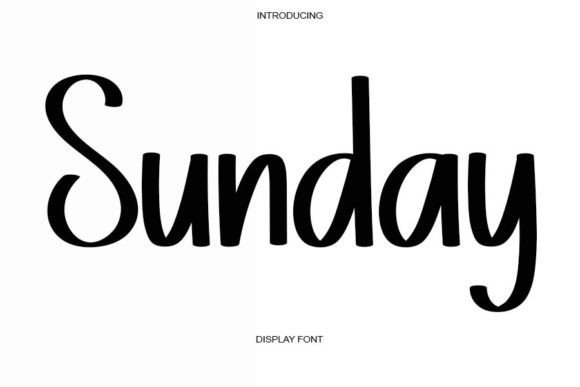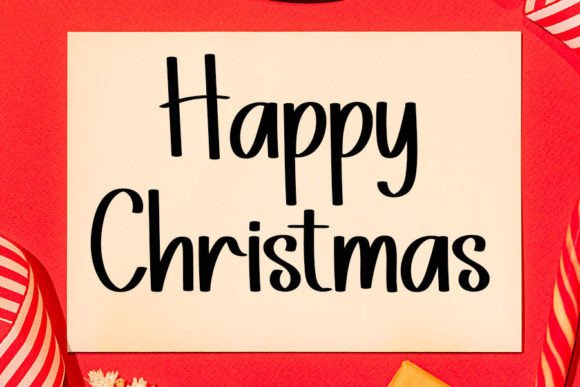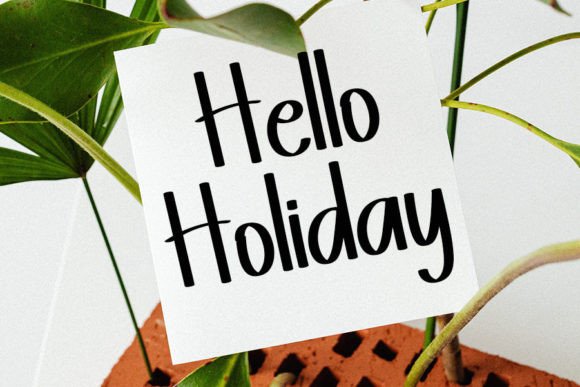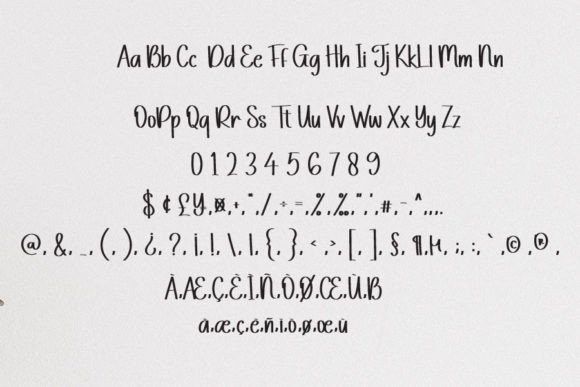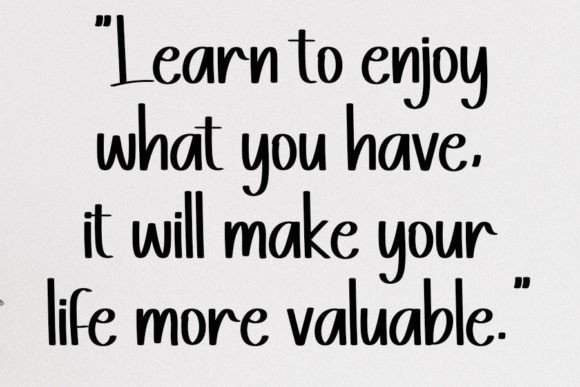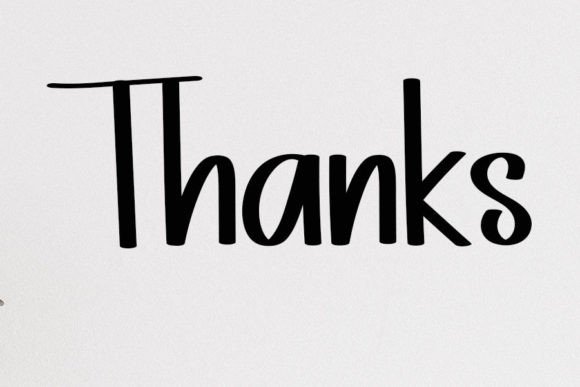
Sunday Font
Add a simple and friendly vibe with the Sunday font. This handwritten script is perfect for a wide range of creative projects. Whether you’re crafting, designing digitally, preparing presentations, or making greeting cards, this font is versatile and welcoming.
The Sunday font is crafted to become your favorite go-to typeface. Its clean and casual style fits various occasions. You can easily apply it to both personal and professional works.
Each character is designed with smooth and approachable strokes. This results in a natural and polished appearance. The font balances charm with readability, making it suitable for logos, headlines, quotes, and decorative text.
Despite its simplicity, the Sunday font maintains excellent readability at different sizes. Whether used for bold titles or subtle details, it adapts well. Its flexibility makes it ideal for a variety of creative applications.
Using this font will help your projects stand out. It adds warmth and friendliness. If you want your designs to look natural and polished, the Sundayfont is a perfect choice.
In summary, the Sundayfont suits many design needs. From crafts to digital designs and presentations, it brings simplicity and charm. Download it today and create beautiful, memorable projects with a friendly handwritten script.